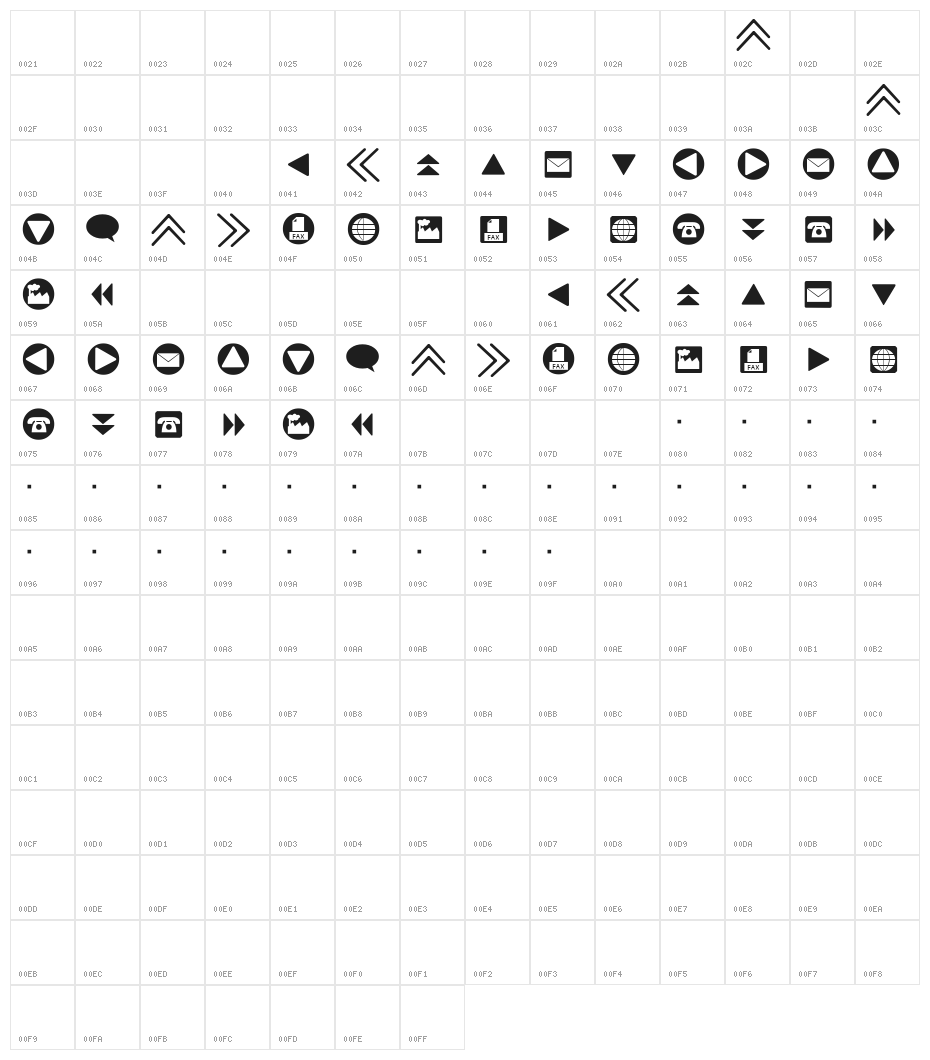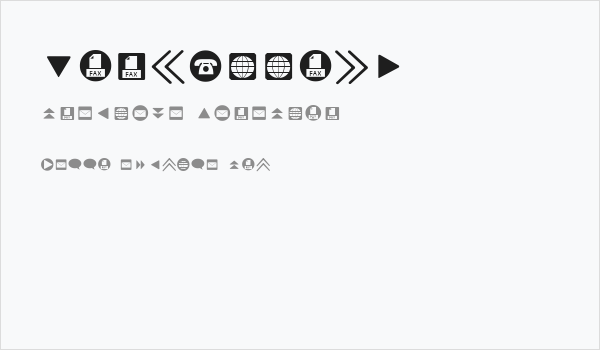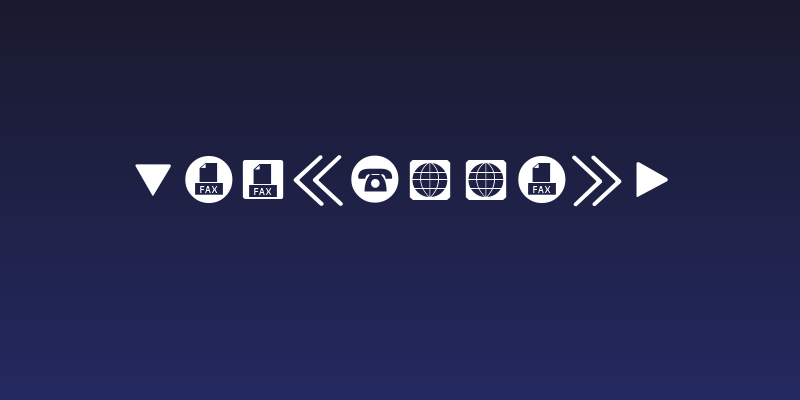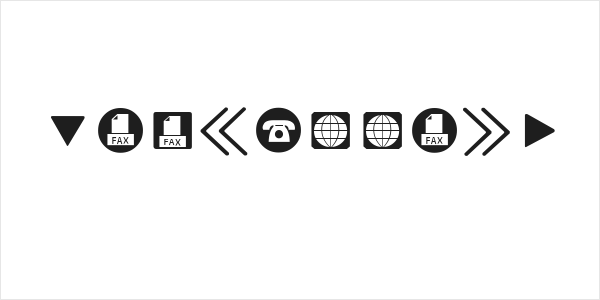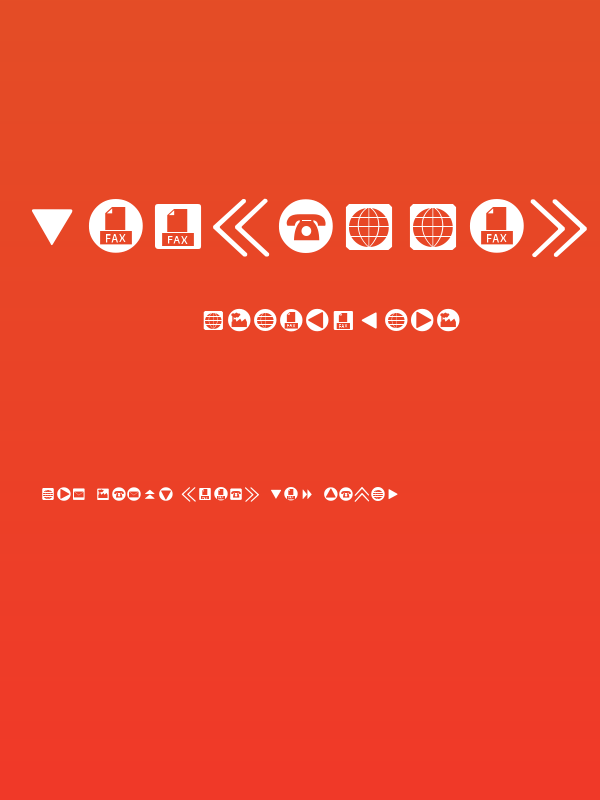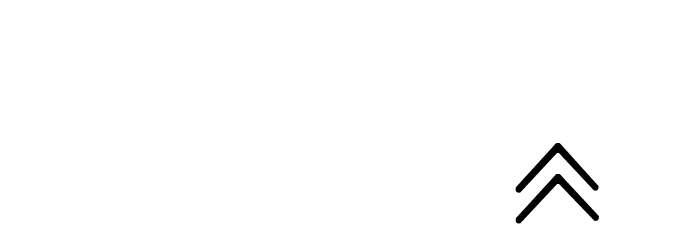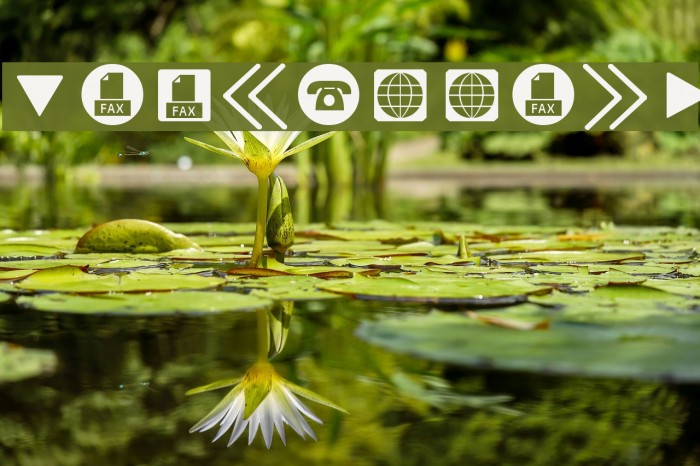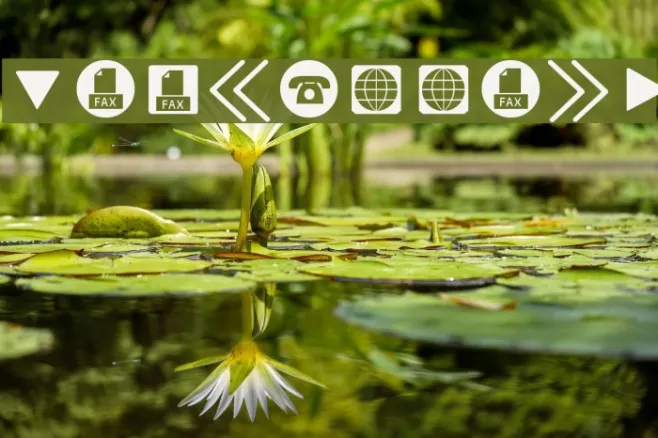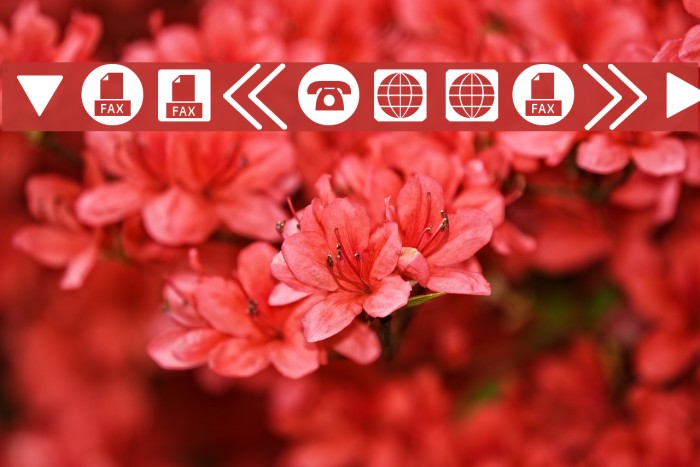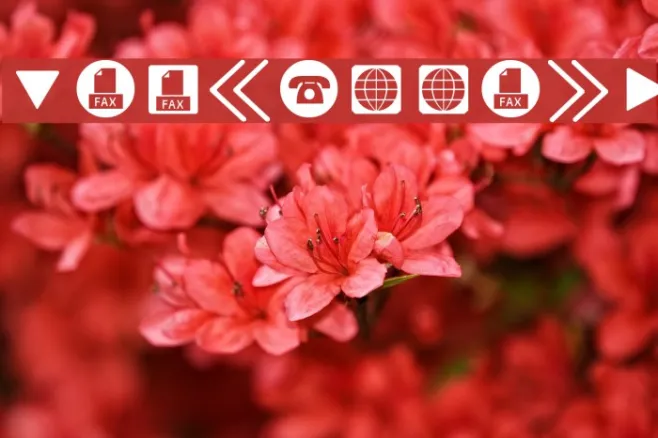
ForButtons Font
ForButtons Description
This collection features a series of bold, geometric icons designed for user interface elements. The icons include arrows, communication symbols, and various shapes, all rendered in a solid, monochromatic style. The design is clean and straightforward, making it suitable for digital applications where clarity and simplicity are paramount. Each icon is crafted to be easily recognizable, ensuring quick comprehension and usability in navigation or communication contexts.
| Use Case | Icons, User Interface, Navigation |
| Proposed Projects | Ideal for app interfaces, website navigation, and digital communication tools. |